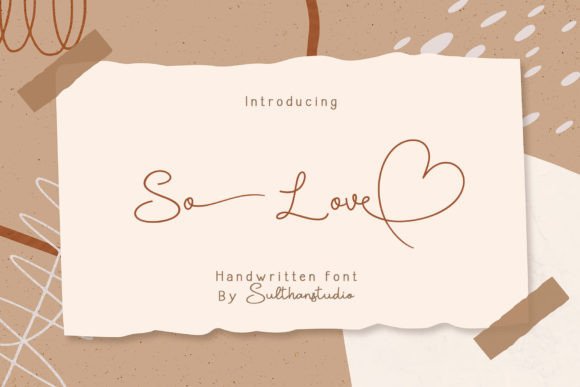
Journey into the realm of So Love Font, a captivating script font family that exudes charm and elegance. Its enchanting handwritten style dances across your digital canvas, leaving a trail of visual delight that captures hearts and ignites imaginations.
So Love Font is a symphony of creativity, perfectly suited for a myriad of design projects. Its versatility knows no bounds, making it an ideal choice for branding, logos, wedding invitations, diaries, cups, mugs, greeting cards, and any project that demands a touch of whimsy and sophistication.
With So Love Font, you wield the power to transform ordinary into extraordinary. Its playful curves and sweeping strokes infuse your designs with a sense of movement and energy, drawing the eyes of your audience and leaving them spellbound. Experience the joy of creating designs that resonate with your soul, designs that are as unique and captivating as your imagination itself.
So Love Font is not merely a font; it's an expression of your style, a reflection of your creativity. It allows you to weave tales of love, joy, and elegance through the strokes of your keyboard. Let your designs bloom with the beauty of So Love Font and watch as they blossom into masterpieces that captivate and inspire.
Embrace the allure of So Love Font and embark on a creative journey that knows no limits. It's time to unveil the hidden gems of your imagination and let your designs shine brighter than ever before. So Love Font is your key to unlocking a world of design possibilities, a world where imagination reigns supreme.